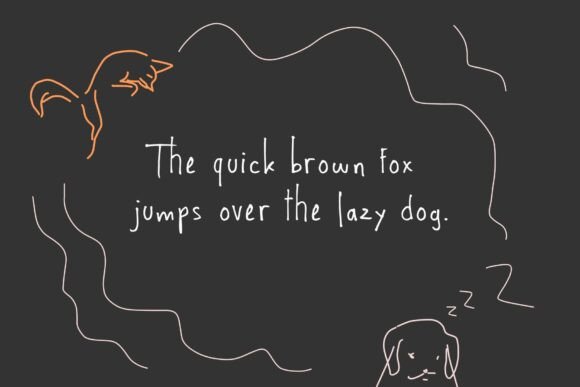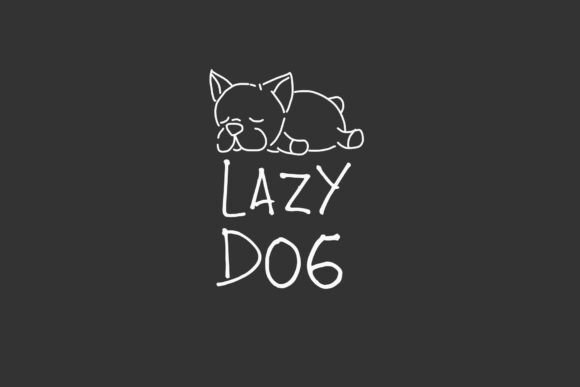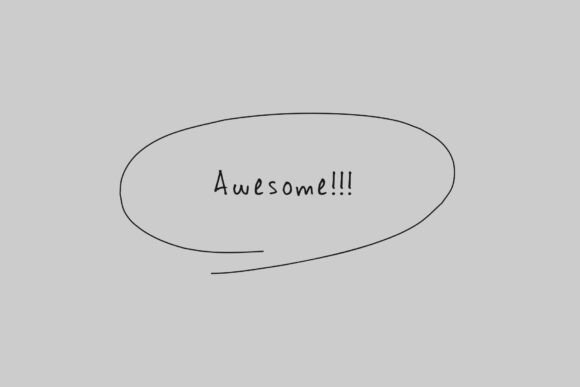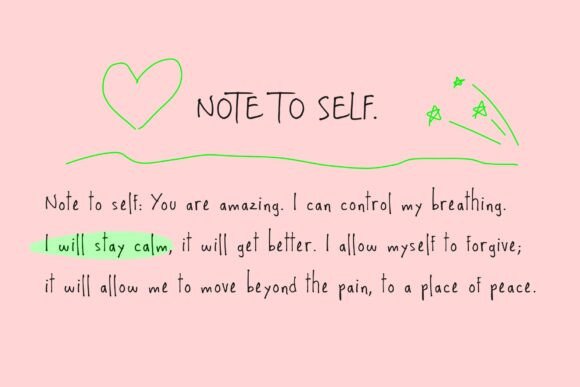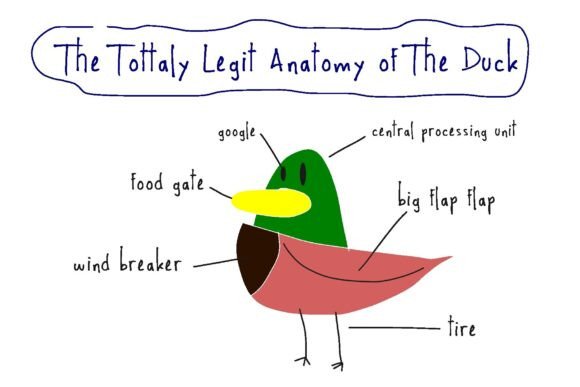
Introduction to Siget Font
Introducing a handwritten masterpiece made exclusively with marker strokes, behold the enticing charm of a crafted, natural and manually written font.
Bearing the inherent whimsy of organic handwriting, this marker font unfolds an authentic texture that adds a personal and intimate touch to your designs Capture the essence of handcrafted artistry with this incredible font, meticulously shaped using a marker by a seasoned designer.
Siget Font offers exceptional quality and versatility, making it a valuable addition to your design toolkit. Whether you’re creating for personal projects or commercial use, Siget Font delivers professional results.